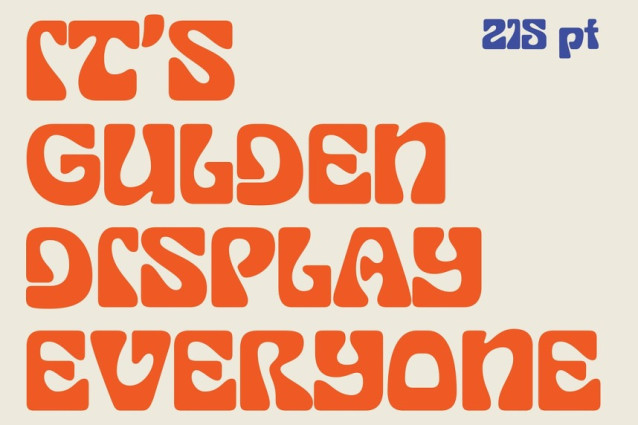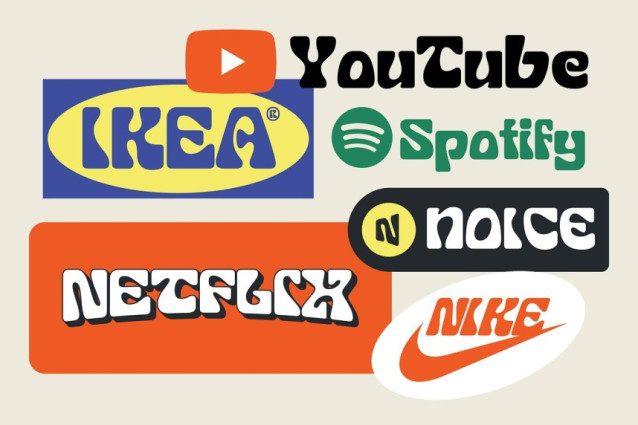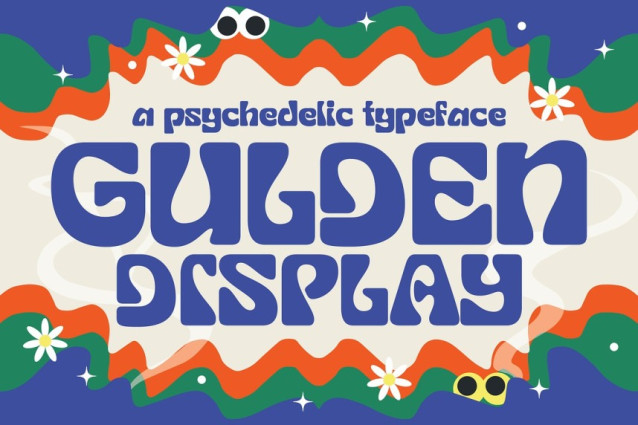
Gulden Display Font – Introducing our new psychedelic display font, perfect for adding some trippy vibes to your designs. This bold and eye-catching font features swirling, abstract shapes and patterns that seem to move and shift right before your eyes. With its unique, otherworldly aesthetic, this font is perfect for album covers, concert posters, and any project that wants to make a bold, unconventional statement. Whether you’re a graphic designer, artist, or just looking to add some visual interest to your personal projects, this font is sure to make an impact. Give it a try and let your creativity take flight!